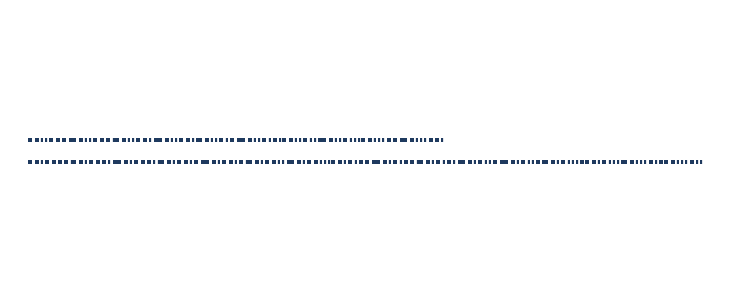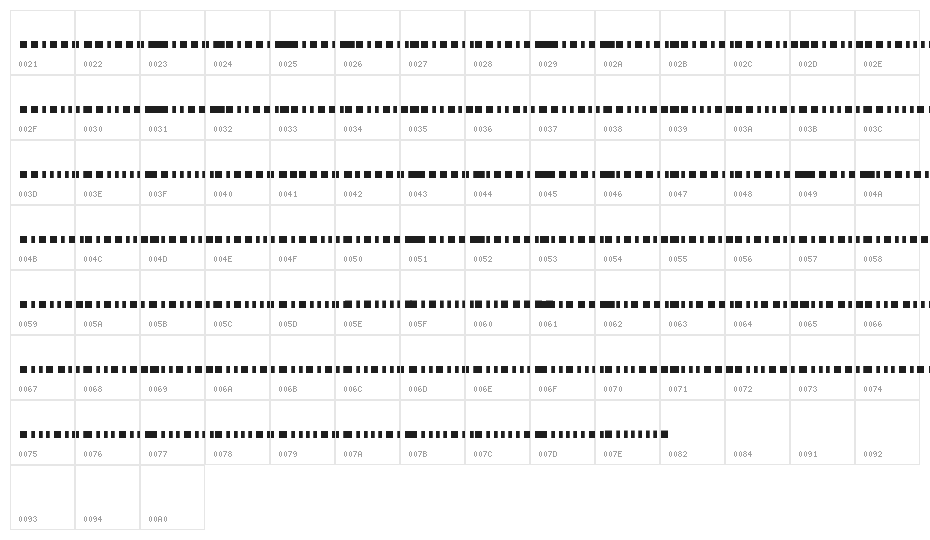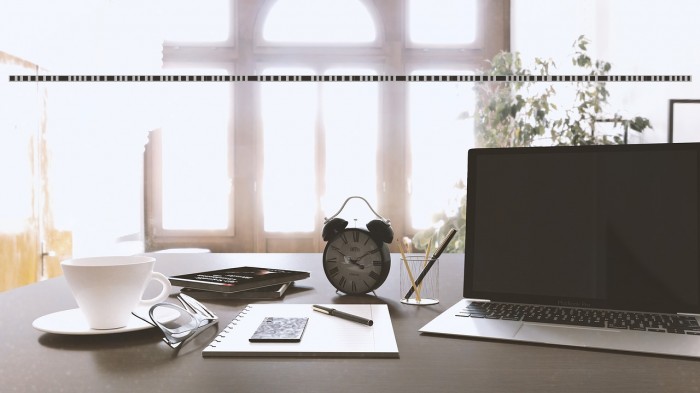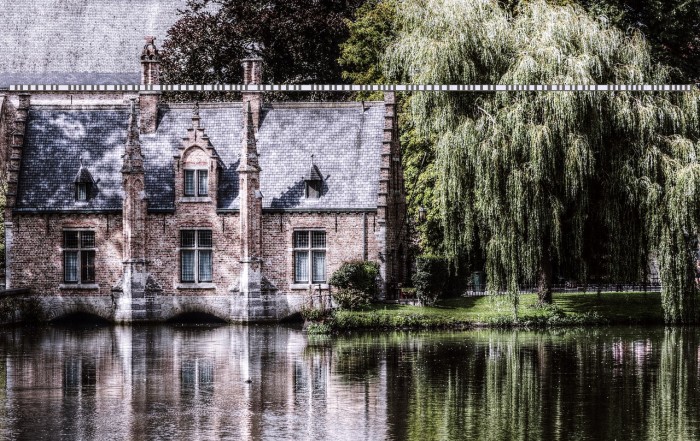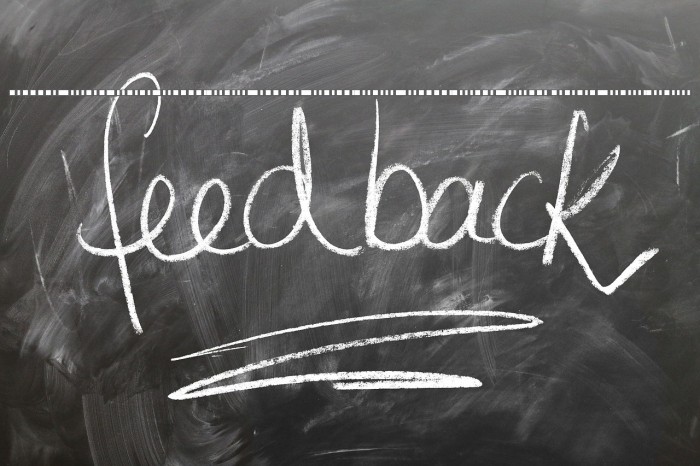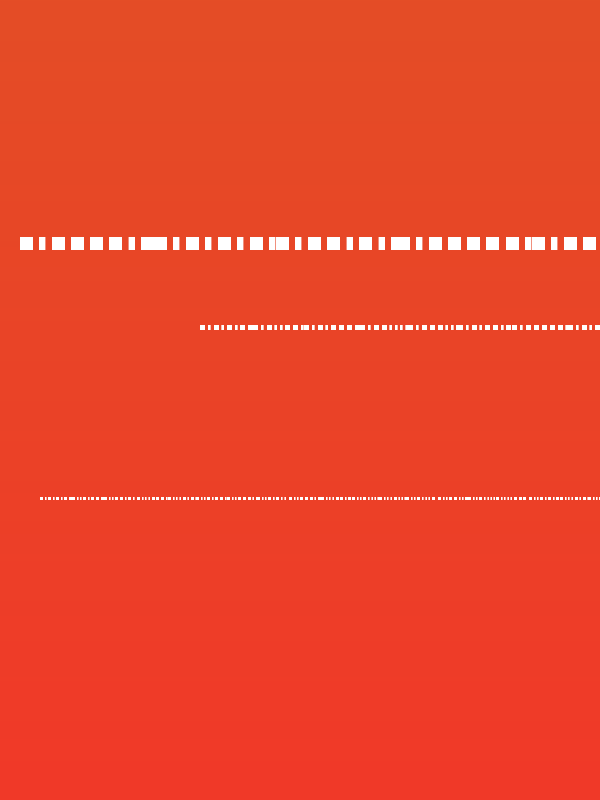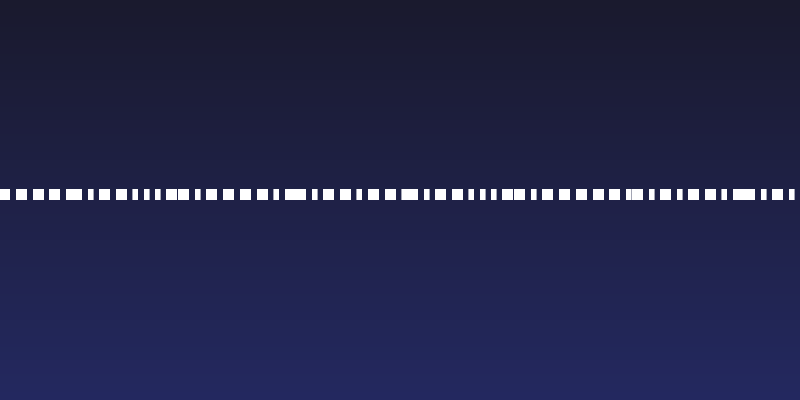
A highly geometric and abstract font composed entirely of small, evenly spaced rectangular blocks, creating a pixelated or binary code-like appearance. Each character is represented by a unique arrangement of these blocks, making the text appear as a series of digital patterns rather than traditional letterforms.
| Overall Style | Futuristic, Abstract, Digital |
| Use Case | Logos, Headlines, Posters, Experimental Typography |
| Proposed Projects | Tech branding, digital art, futuristic posters, coding-related graphics, experimental design projects. |